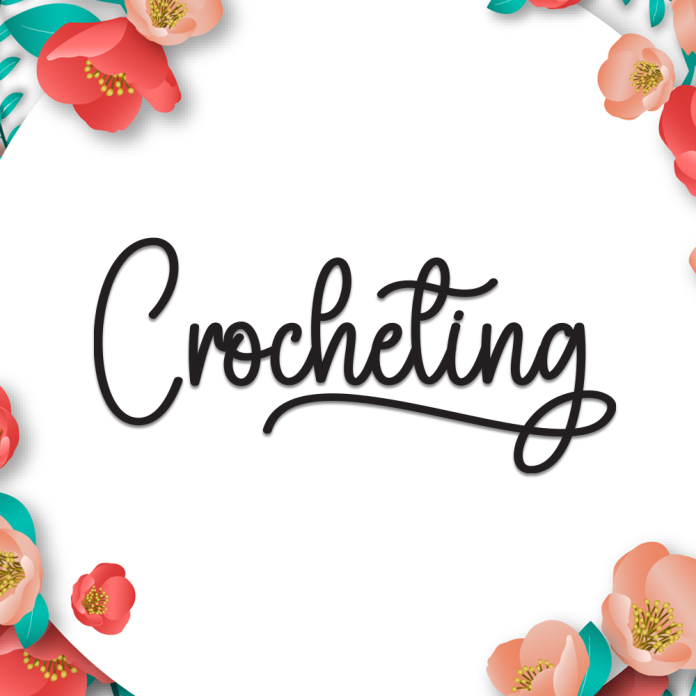
Crocheting is a warm and textured handwriting font that feels like a handwritten note on a cozy afternoon. Inspired by the delicate art of crochet, this font weaves softness and charm into every stroke.
With its casual, handcrafted appearance, Crocheting is ideal for DIY branding, journals, greeting cards, packaging, and craft-themed projects.
Relaxed and natural handwritten style
Perfect for craft projects, personal branding, and scrapbooking
Soft, friendly character
Wrap your words in comfort with the heartwarming charm of Crocheting.